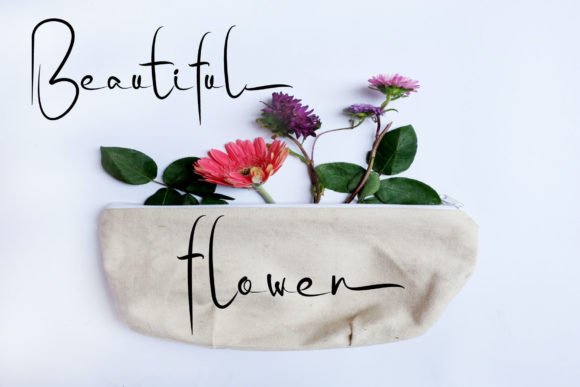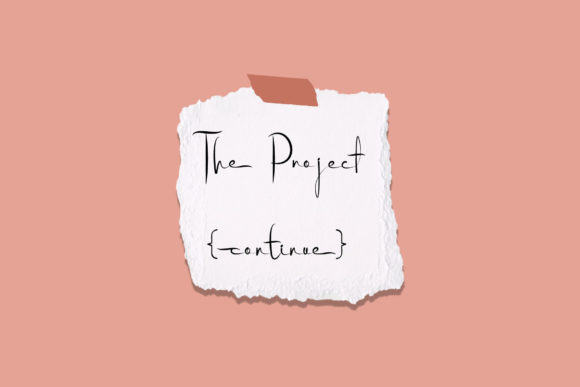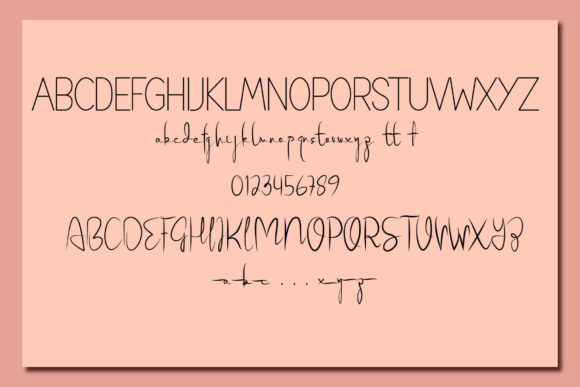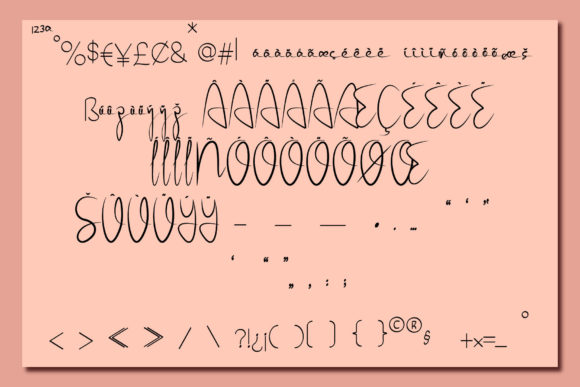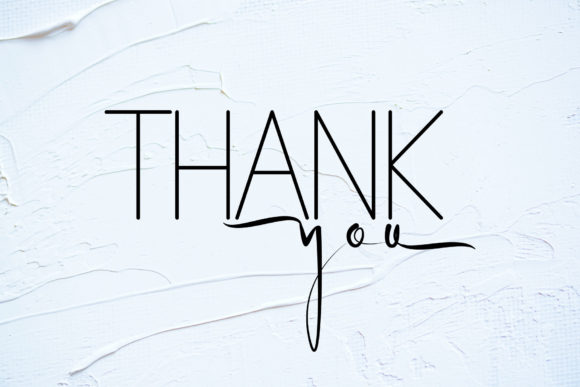
City Growth Font
About City Growth Font
“City Growth” is a thin, chic, and delicate script font that adds a touch of elegance and personalization to a wide range of designs. With its refined and stylish appearance, this font is perfect for projects that require a sophisticated and personalized touch, such as wedding invitations, thank you cards, logos, and more.
The thin letterforms of “City Growth” give it a sleek and elegant look, making it well-suited for designs that call for a modern and sophisticated aesthetic. Whether you’re creating wedding stationery or crafting a logo for a high-end brand, this font will bring a touch of class and refinement to your designs.
The chic and delicate nature of “City Growth” makes it versatile for various design themes and occasions. Its graceful curves and flowing strokes create a sense of sophistication and beauty, adding an element of luxury to your projects. Whether you’re going for a romantic, vintage-inspired look or a contemporary, minimalist design, this font can adapt to your creative vision.
With its PUA encoding, “City Growth” provides easy access to a wide range of glyphs and swashes, allowing you to customize and enhance your designs. This feature gives you the freedom to experiment with different ligatures, alternate characters, and decorative elements, giving your projects a unique and personalized touch.
Overall, “City Growth” is a thin, chic, and delicate script font that brings an air of elegance and personalization to your designs. Its versatility and PUA encoding make it a valuable addition to your font library, enabling you to create stunning and customized designs for various occasions. Embrace the beauty of “City Growth” and let it enhance your projects with its sophisticated and refined style.